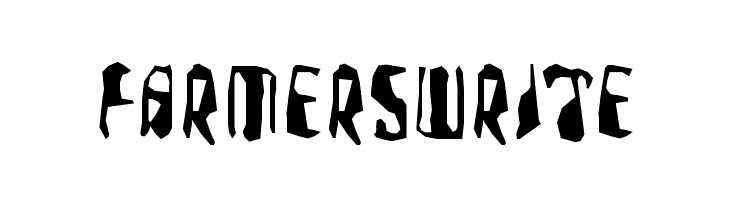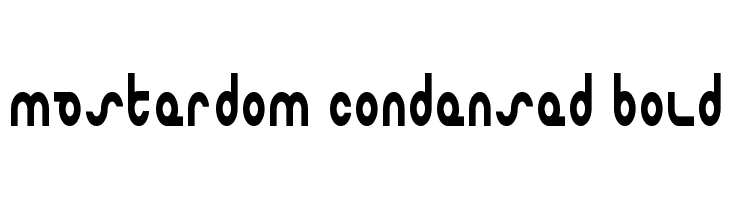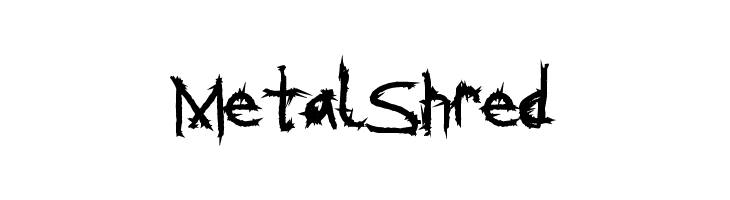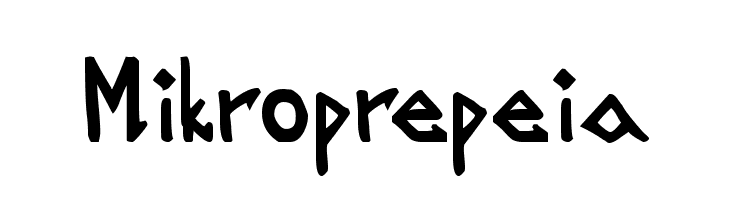
A bold, condensed, and italicized font with sharp angles and dynamic style.
A playful, handwritten font with smooth curves and a casual style.
A jagged, thorn-like font with an edgy, rebellious aesthetic.
A geometric, stencil-like font with a bold, industrial design.
A modern, dotted font with a geometric and cohesive design.
A playful, handwritten font with smooth, rounded edges and a casual style.